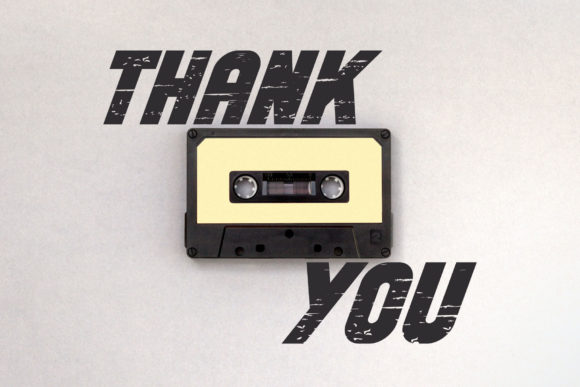
Introduction to Old Car Font
Do you ever find yourself brainstorming for the perfect design element to add a touch of speed and power to your project? I know I do. Sometimes, it’s those small details that can make or break the overall aesthetic of a design. I recall a particularly creative moment when I was working on a project that required an edgy, high-energy vibe. That’s when I stumbled upon the Old Car Font – a game-changer for any design enthusiast.
As a valuable design resource, the Old Car Font offers a unique blend of thickness and texture that’s perfect for projects that need to convey a sense of power and speed. With its thick letters and rough texture, this font is sure to make your designs stand out from the crowd. Whether you’re working on a free download or a high-quality design, the Old Car Font is an excellent addition to any creative project.
Key Features of Old Car Font
- High-quality design resource for creative projects, offering a unique vintage aesthetic.
- Comes with a transparent background, making it easy to integrate into various design compositions.
- Features a large character set, including uppercase and lowercase letters, numbers, and punctuation marks.
- Designed with a high resolution (300 DPI), making it suitable for use in various print and digital applications.
- Unique characteristics include distressed textures and worn-out effects, adding to its vintage charm.
Honest Review: Old Car Font
I recently stumbled upon the Old Car Font and was excited to give it a try in my latest creative project. The font immediately caught my attention with its unique, vintage feel. I love how it evokes a sense of nostalgia and can be used in a variety of contexts, from retro-themed designs to modern branding.
One of the standout features of this font is its high quality and clarity. The characters are well-designed and easy to read, making it perfect for both digital and print applications. I also appreciate the fact that it’s a free download, making it a great resource for designers on a budget.
What works well: ✨ The font’s versatility, ✨ its clear and legible design, and ✨ the transparent background option, which makes it easy to customize and integrate into any design.
Limitations: ⚠️ The font is a bit limited in terms of character sets, which may not be ideal for designers working on complex projects. Additionally, the font may not be suitable for all types of designs, particularly those that require a more modern or minimalist look.
Overall, I’m really impressed with the Old Car Font and would highly recommend it to designers looking for a unique and high-quality font for their creative projects.
- Perfect for retro-themed designs, branding, and advertising
- High quality and clear design
How to Use Old Car Font
Introduction to Old Car Font
Old Car Font is a unique and creative design resource that can add a touch of nostalgia to your projects. With a transparent background, this high-quality font is perfect for designers looking to create visually appealing designs.
Old Car Font can also be used in PowerPoint and Word to add a touch of personality to your presentations and documents.
Old Car Font is perfect for designers working on projects such as:
- Designing vintage-inspired graphics
- Creating nostalgic-themed advertisements
- Adding a touch of personality to presentations and documents
Tips for Getting the Most Out of Old Car Font
For the best results, use Old Car Font in conjunction with other design elements, such as distressed textures and vintage graphics. Experiment with different font sizes and styles to create a unique and eye-catching design.